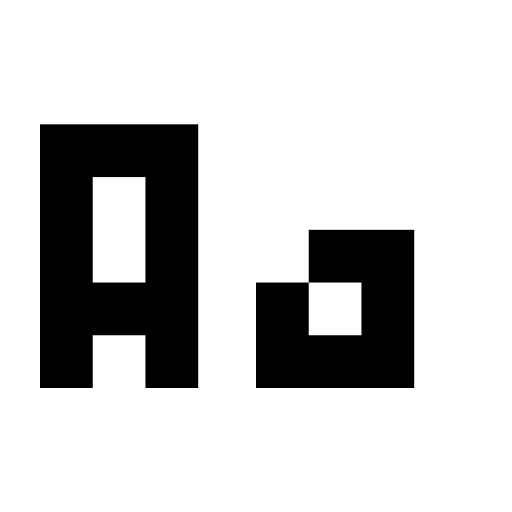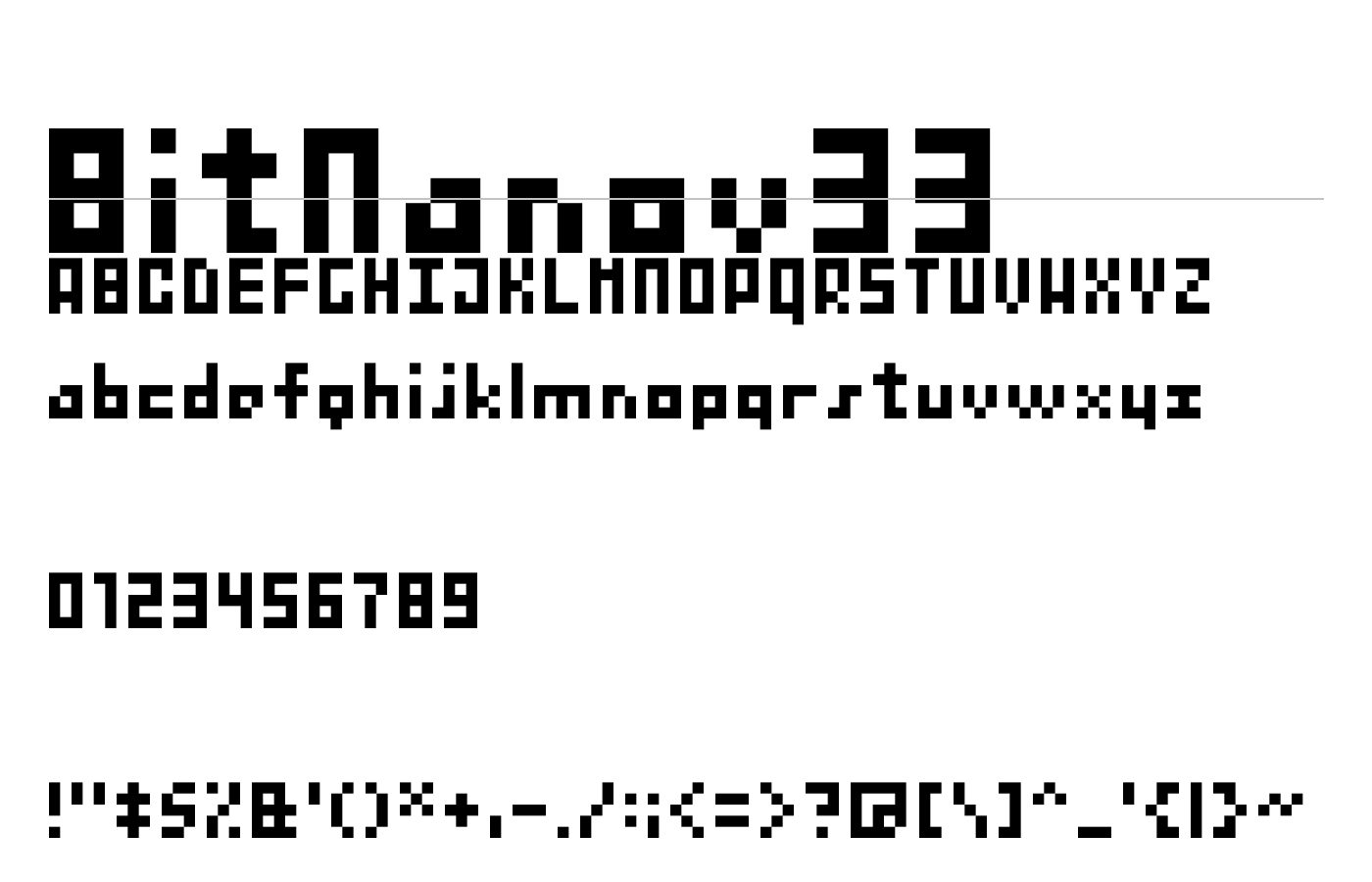
BitNanov33 is a pixel-inspired sans serif font with a bold, blocky appearance and a uniform width that evokes a retro digital aesthetic. Its high x-height and rigid, geometric letterforms make it highly legible at small sizes, perfect for tech-themed designs, video game titles, and digital interfaces. This font’s modern, playful vibe is best suited for branding or headlines where a futuristic, pixel-art style is desired.
BitNanov33 Font